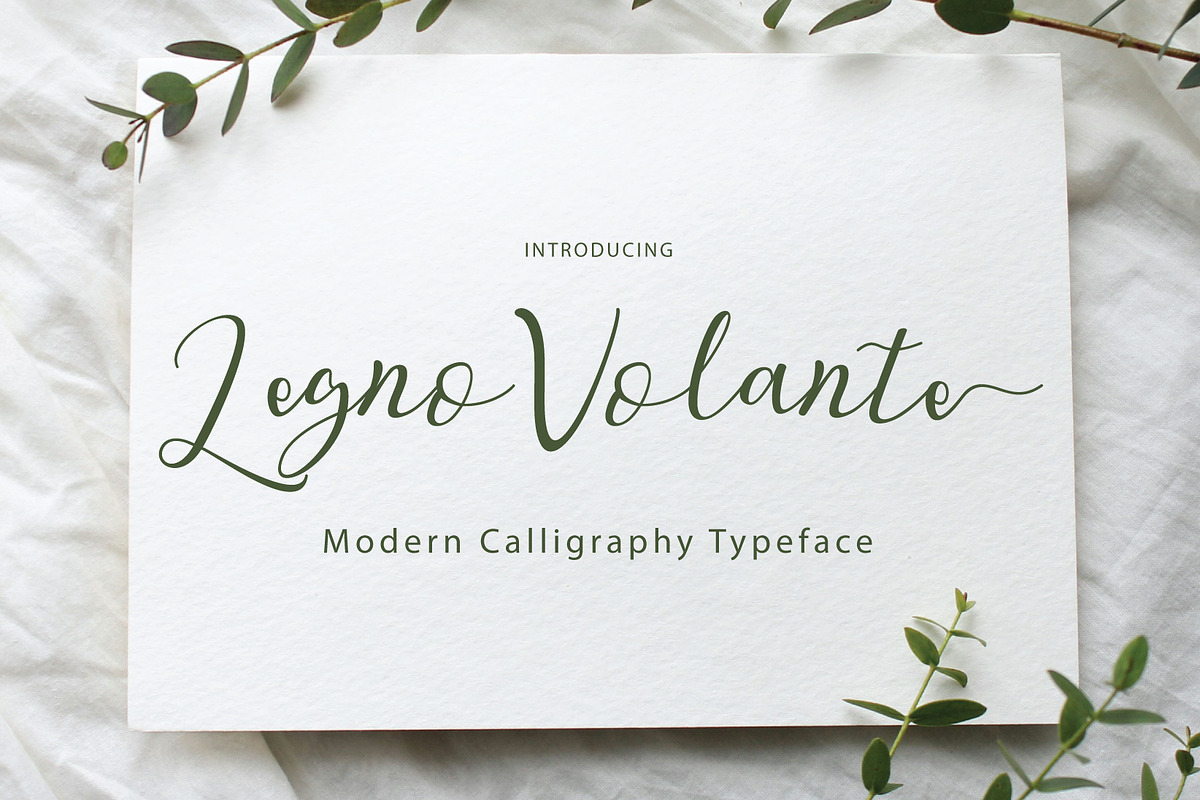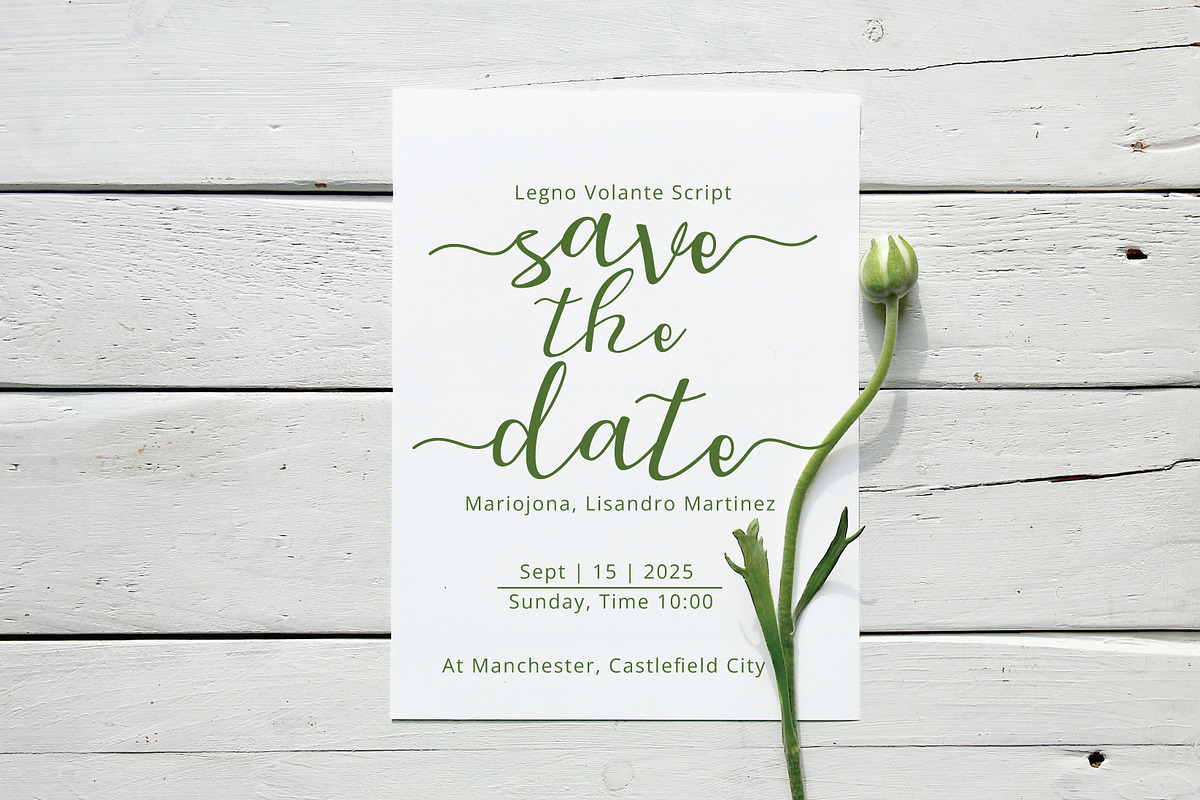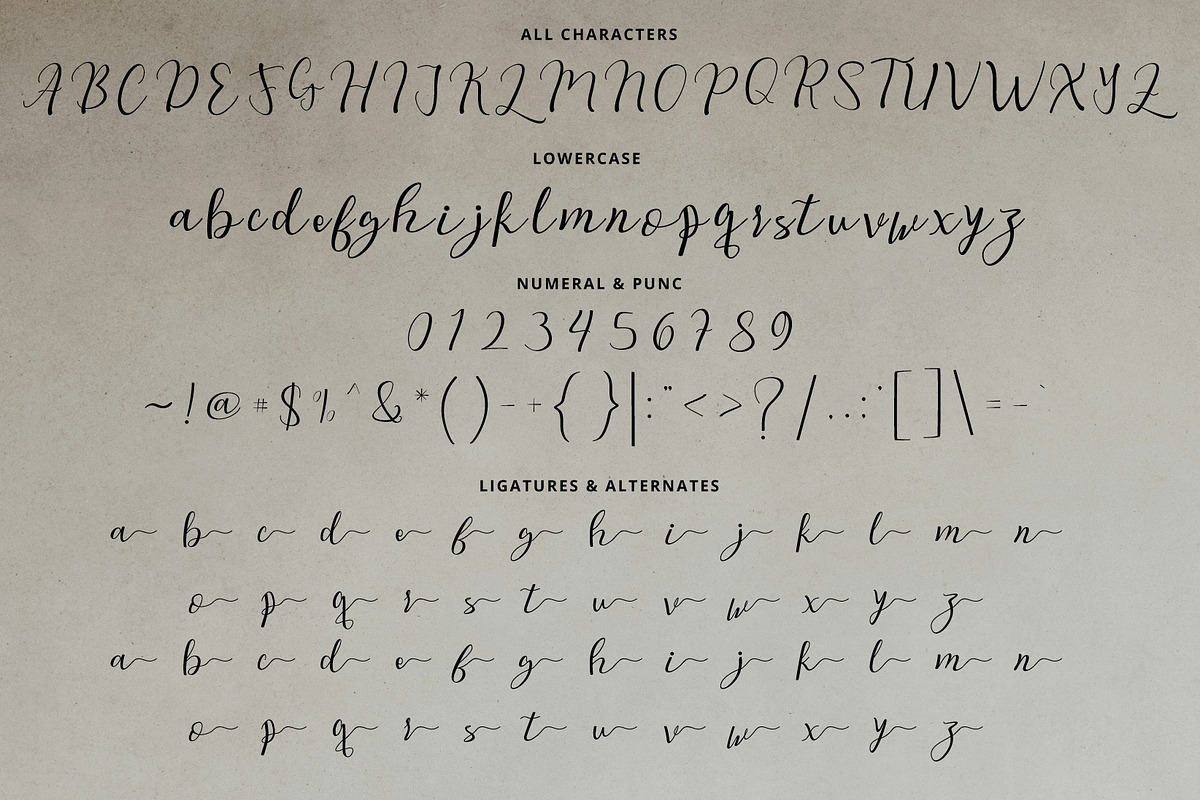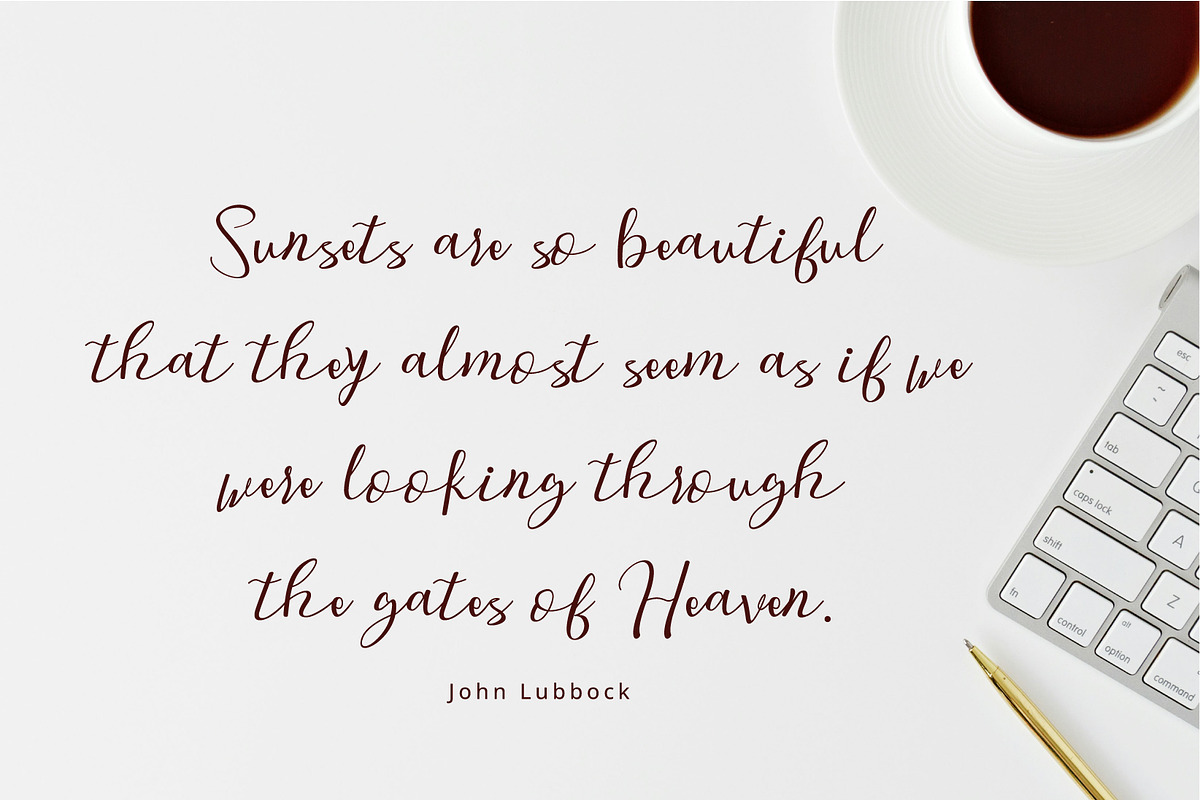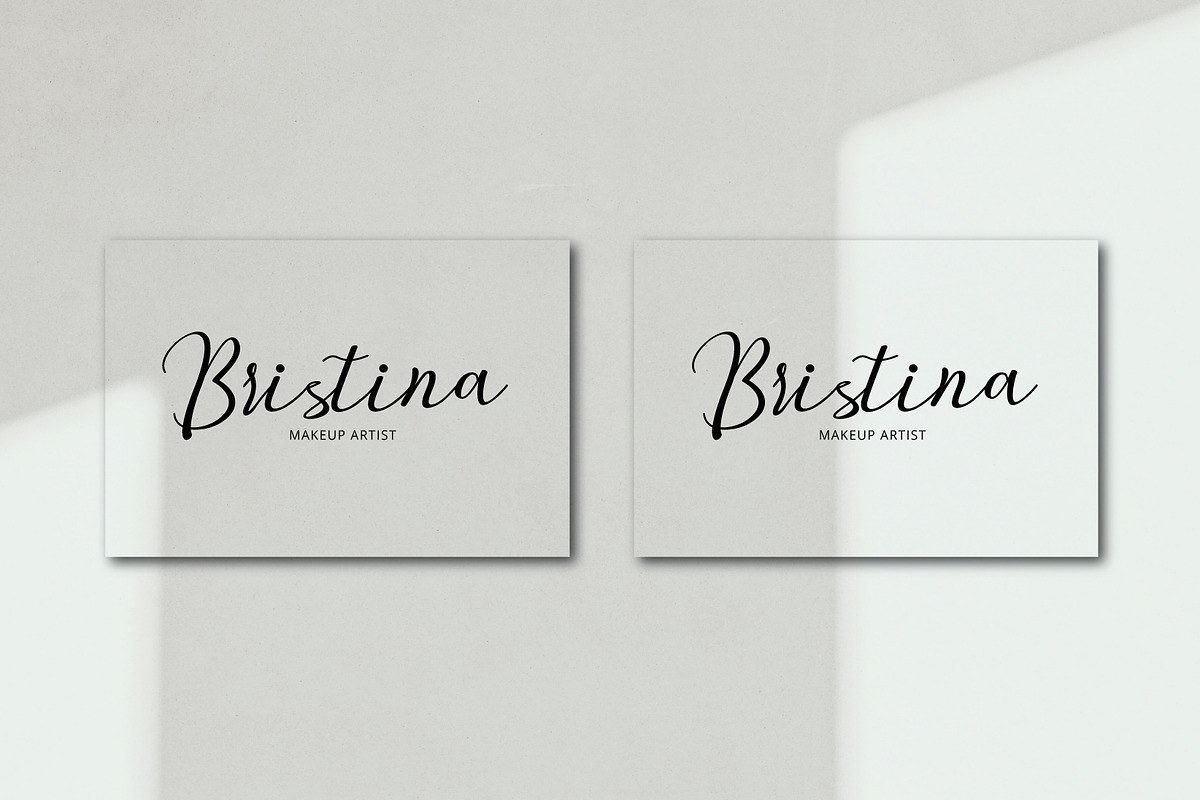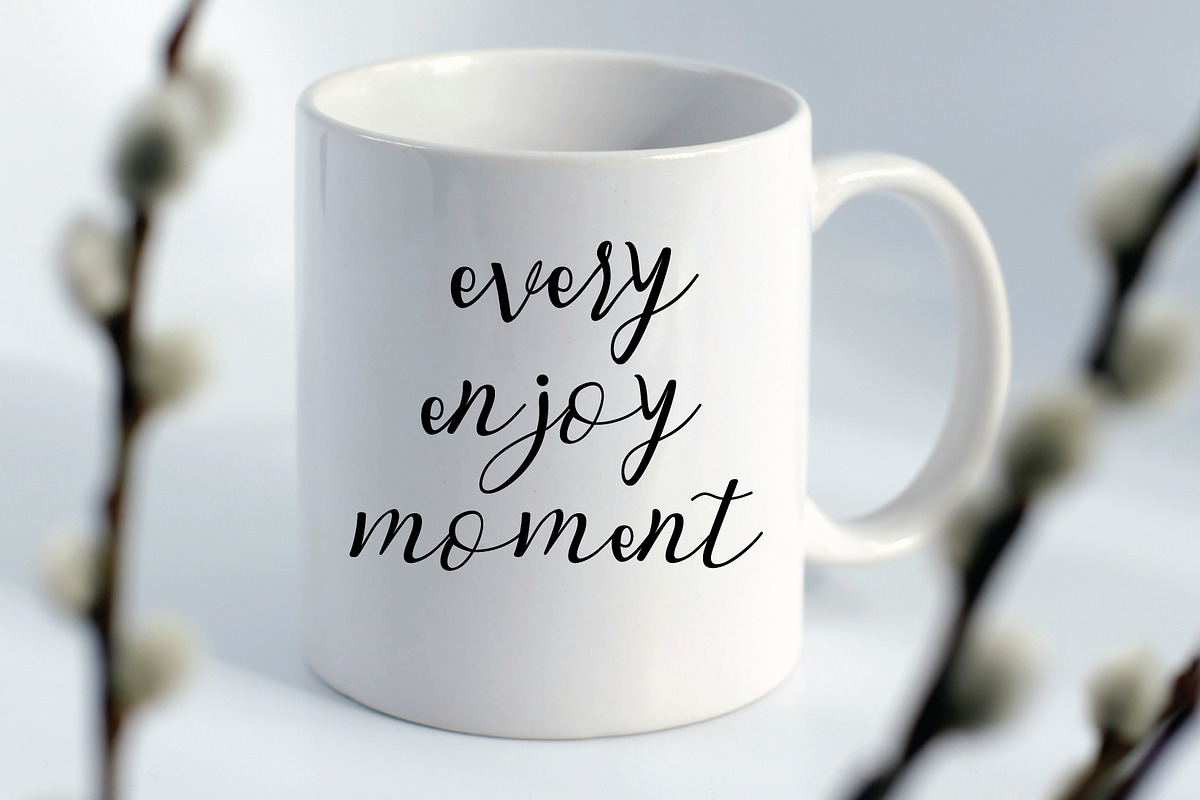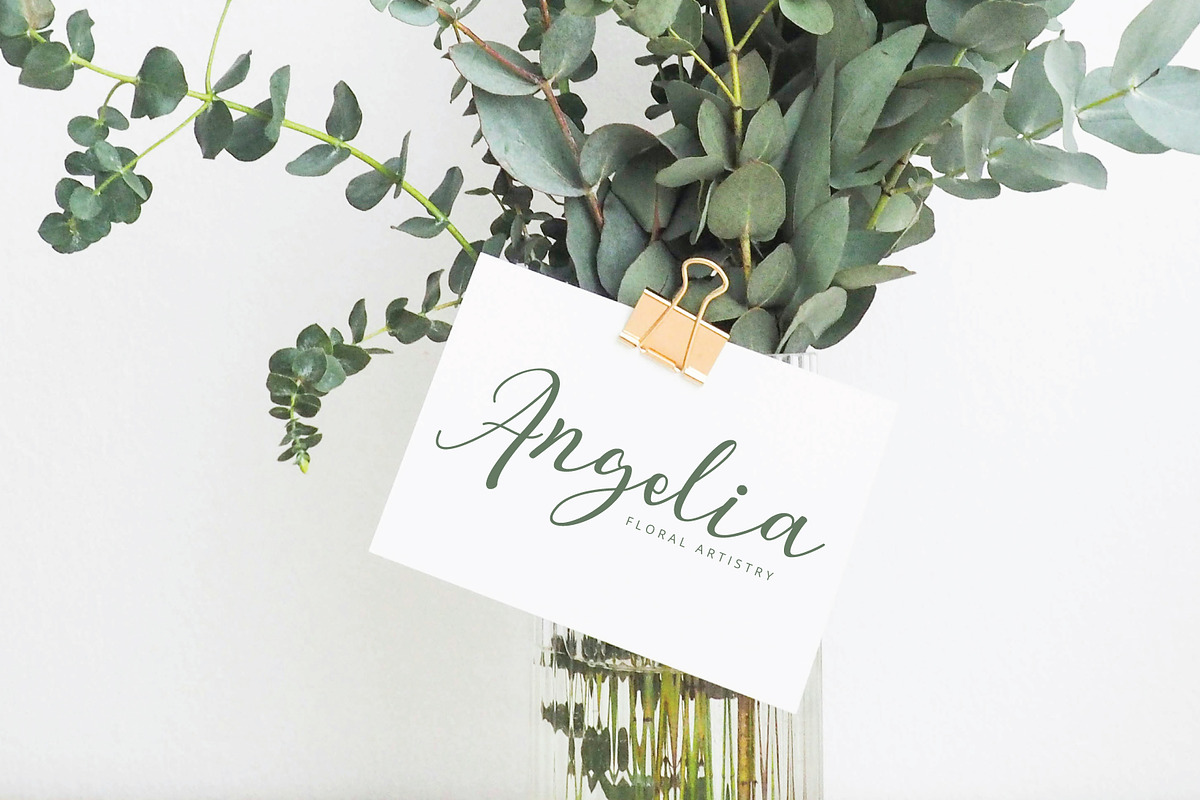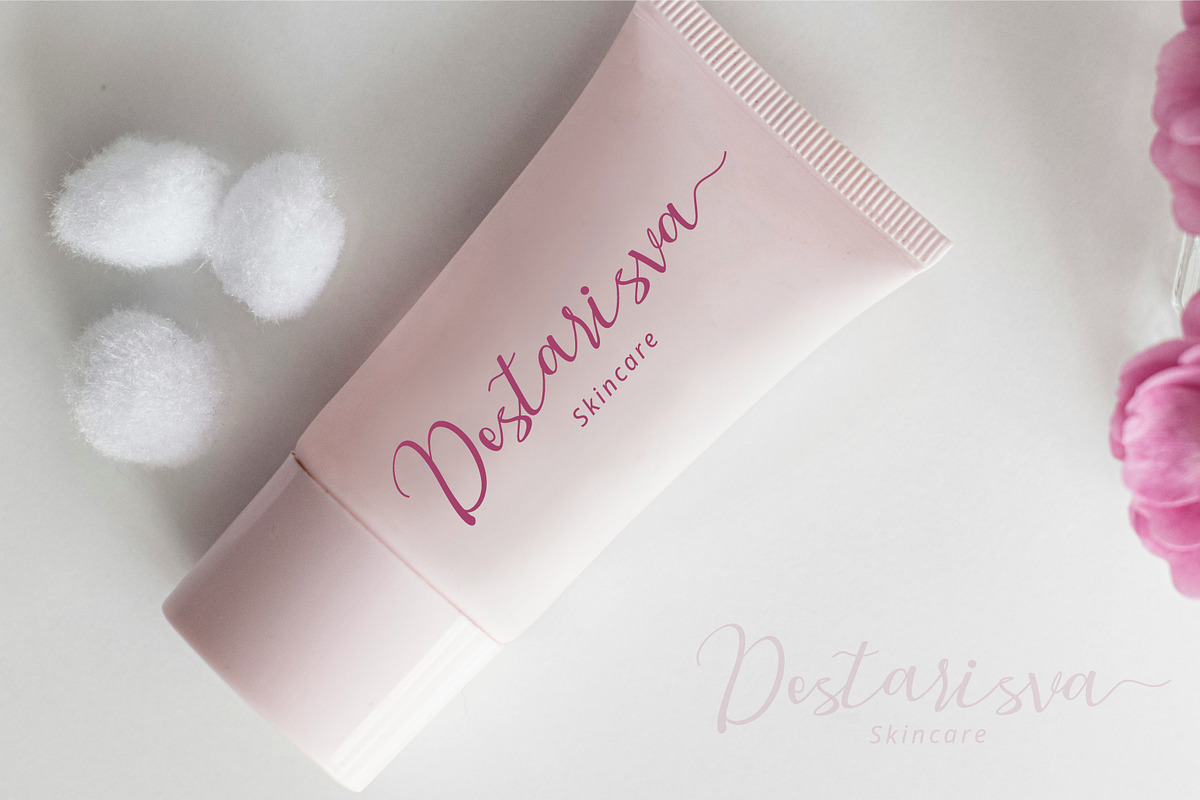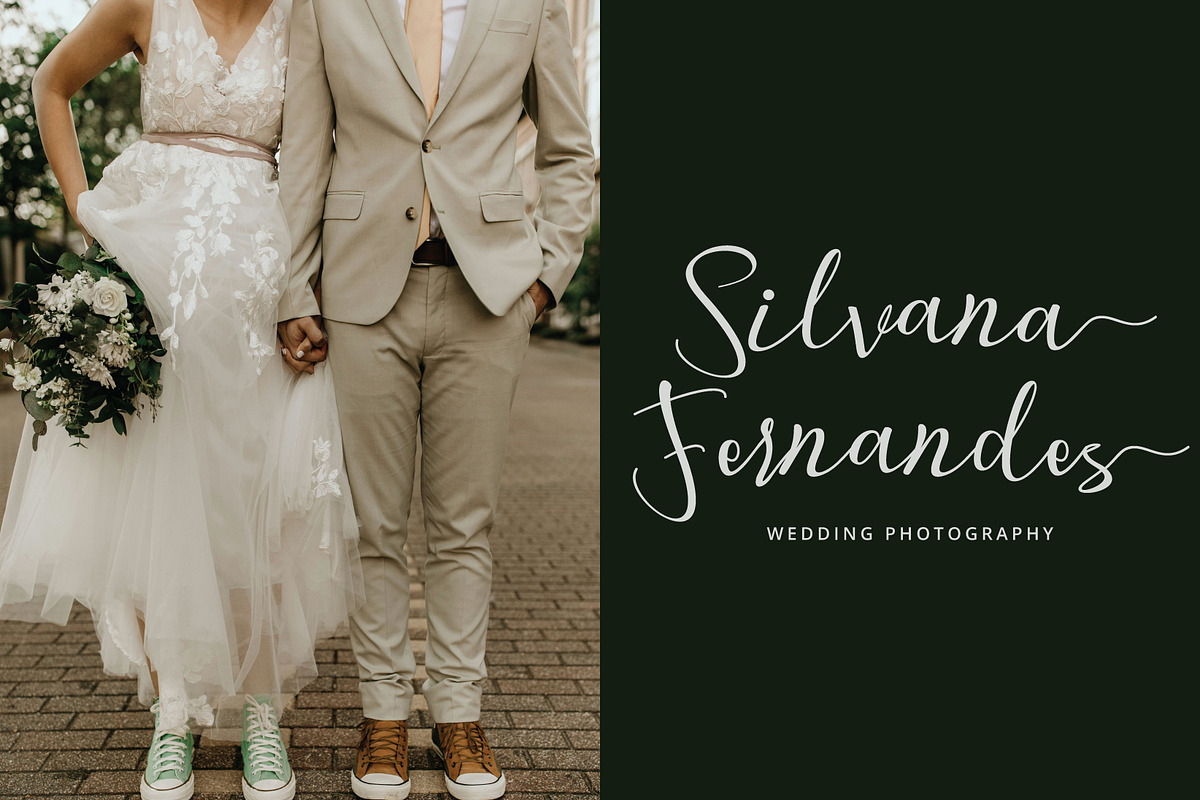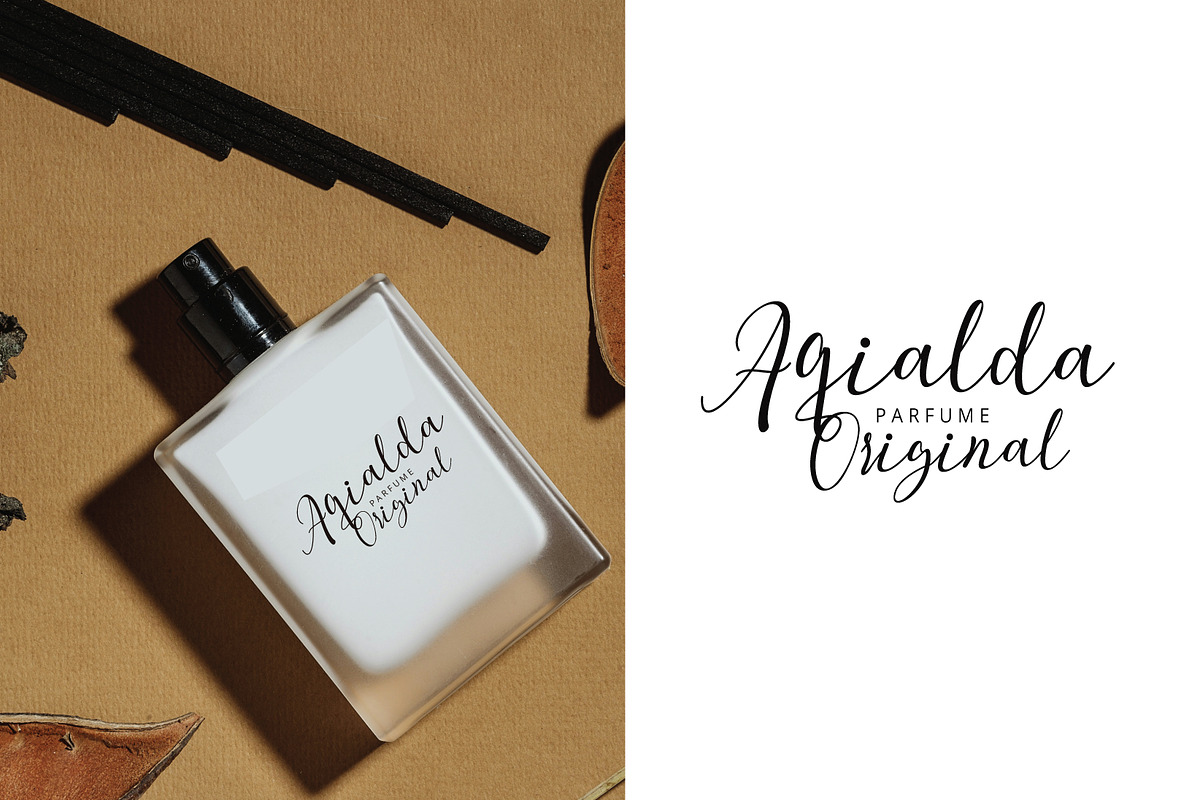
Legno Volante Script
Legno Volante Script with a handmade Signature style, decorative characters and a dancing baseline!
Legno Volante Script with 130+ glyphs. The alternative characters were divided into several Open Type features such as Swash, Stylistic Sets, Stylistic Alternates, and Ligature. The Open Type features can be accessed by using Open Type savvy programs such as Adobe Illustrator, Adobe InDesign, Adobe Photoshop Corel Draw X version, And Microsoft Word. And this Font has given PUA unicode (specially coded fonts). so that all the alternate characters can easily be accessed in full by a craftsman or designer.